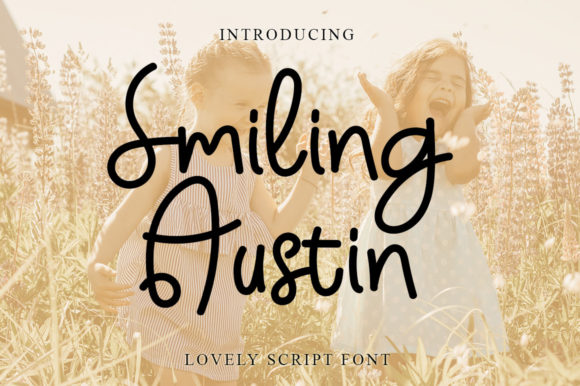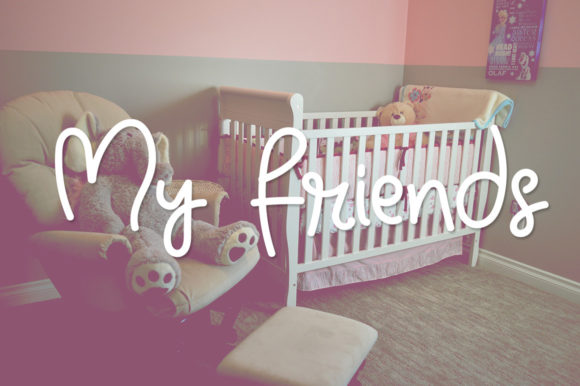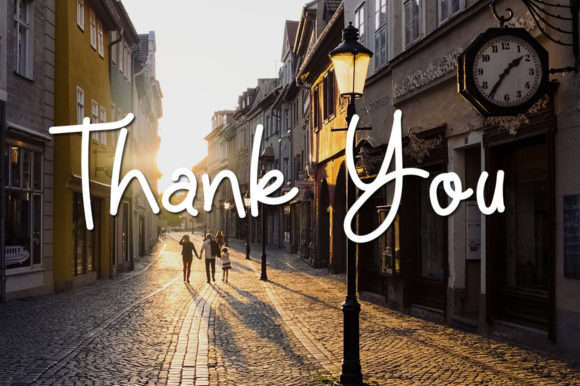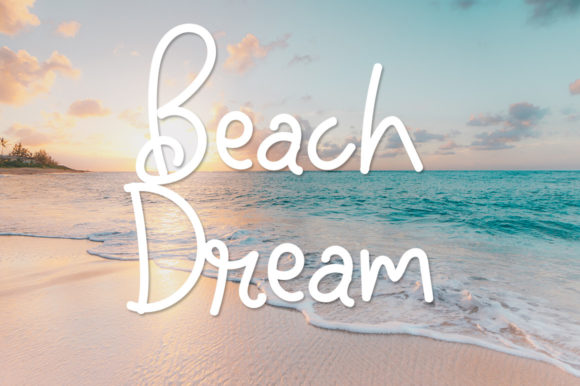
About Smiling Austin Font
Smiling Austin is a delightful and whimsical handwritten font that is sure to capture hearts with its playful charm. With its cute and quirky design, this font adds a touch of lightheartedness and creativity to any project it graces.
The carefully crafted strokes and unique character of Smiling Austin give it a distinct personality that sets it apart. Whether you’re working on invitations, greeting cards, logos, or any other design endeavor, this font brings a sense of joy and individuality that resonates with audiences.
The versatility of Smiling Austin allows it to seamlessly adapt to various design contexts. Its ability to evoke a sense of fun and positivity makes it a wonderful choice for projects aimed at capturing attention and creating a memorable impression. From children’s products to playful branding, Smiling Austin adds a dose of whimsy that leaves a lasting impact.
Embrace the unique charm of Smiling Austin and let it elevate your creative ideas to new heights. Its cute and quirky handwritten style injects a sense of personality and character into your designs, making them stand out and engage audiences in a delightful way. Incorporating Smiling Austin into your projects is a surefire way to infuse them with a playful spirit that resonates with both creators and viewers alike.